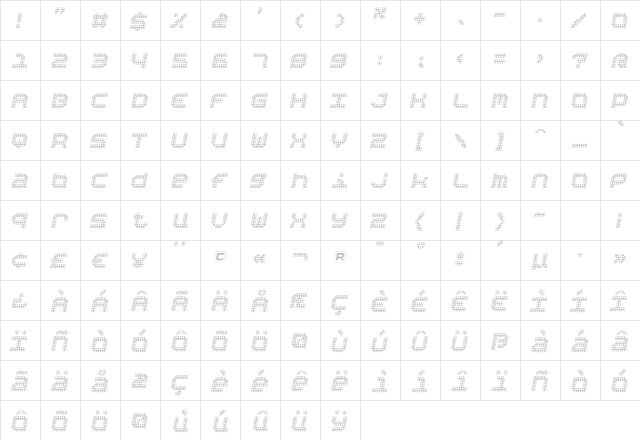
BpositiveOutline Italic Regular
Design Context for BpositiveOutline Italic Typeface
BpositiveOutline Italic is built around its visual character rather than neutral utility — its distinctive forms are designed to make an impression at display sizes. The slanted form adds forward momentum and visual energy.
Font Pairing: Pair with a clean neutral sans-serif for body copy to let BpositiveOutline Italic's character lead without overwhelming the composition.
Pro Tip: Use BpositiveOutline Italic exclusively at display sizes — it was designed to be seen, not read at length. Let a neutral companion handle body copy.